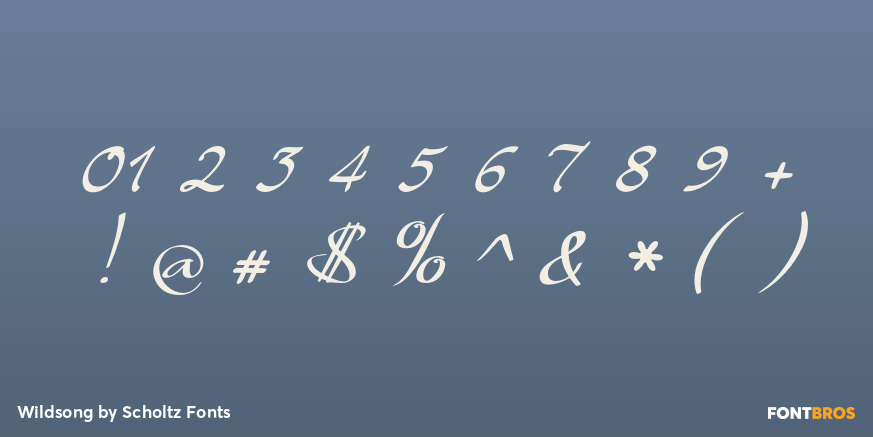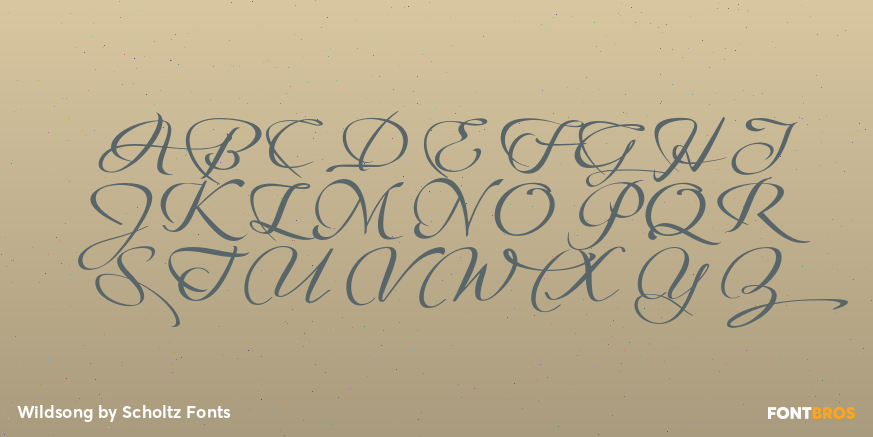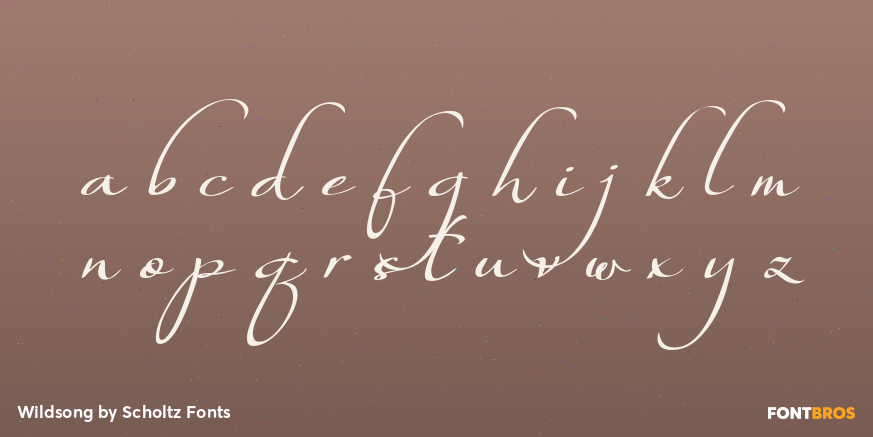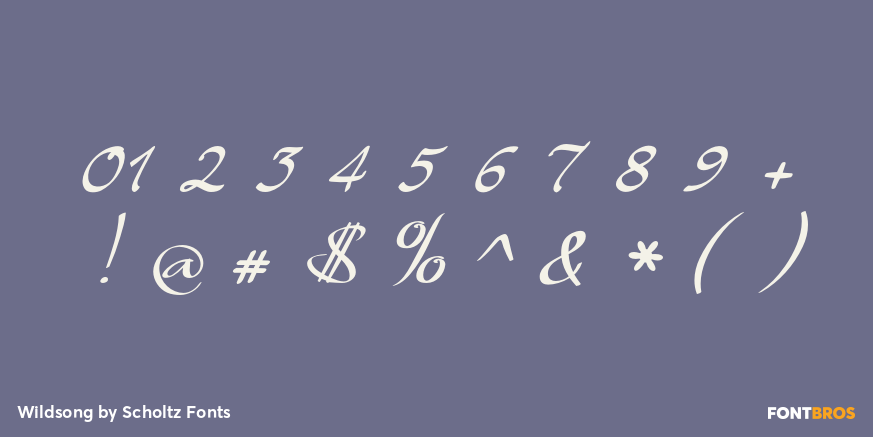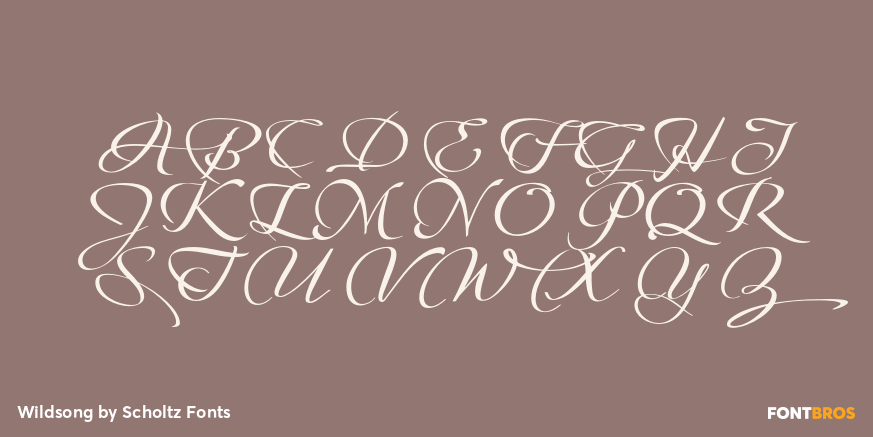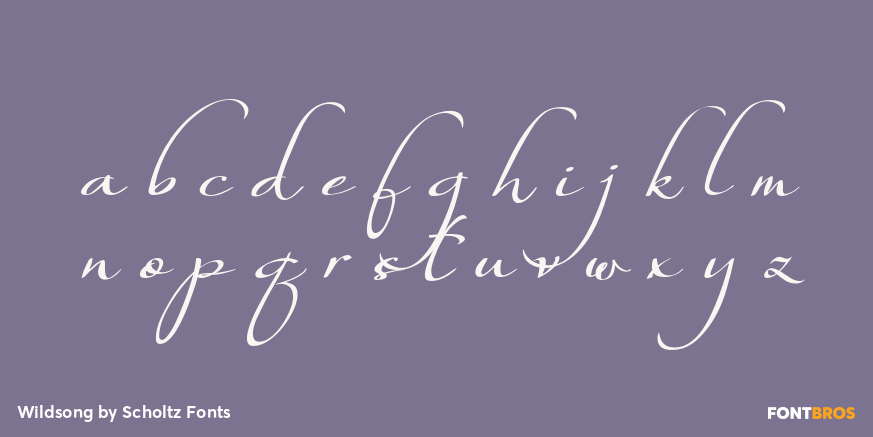
Wildsong
Font Family by Scholtz Fonts
WildSong was inspired by the exuberant flight and beautiful song of birds.
While most brush scripts take their cue from mid-twentieth century samples, WildSong is a fresh, contemporary alternative. WildSong reflects a dynamic interplay between dark and light, creating a sense of drama while hinting at a calligraphic background. Words suggest a baseline, yet are not bound by it. Letters interweave in a seemingly random dance, sometimes connecting smoothly, then breaking that connection as a calligraphic scribe does intuitively. Exuberant swash alternatives to uppercase letters, as well as ligatures can be accessed through both the type and glyph palettes.